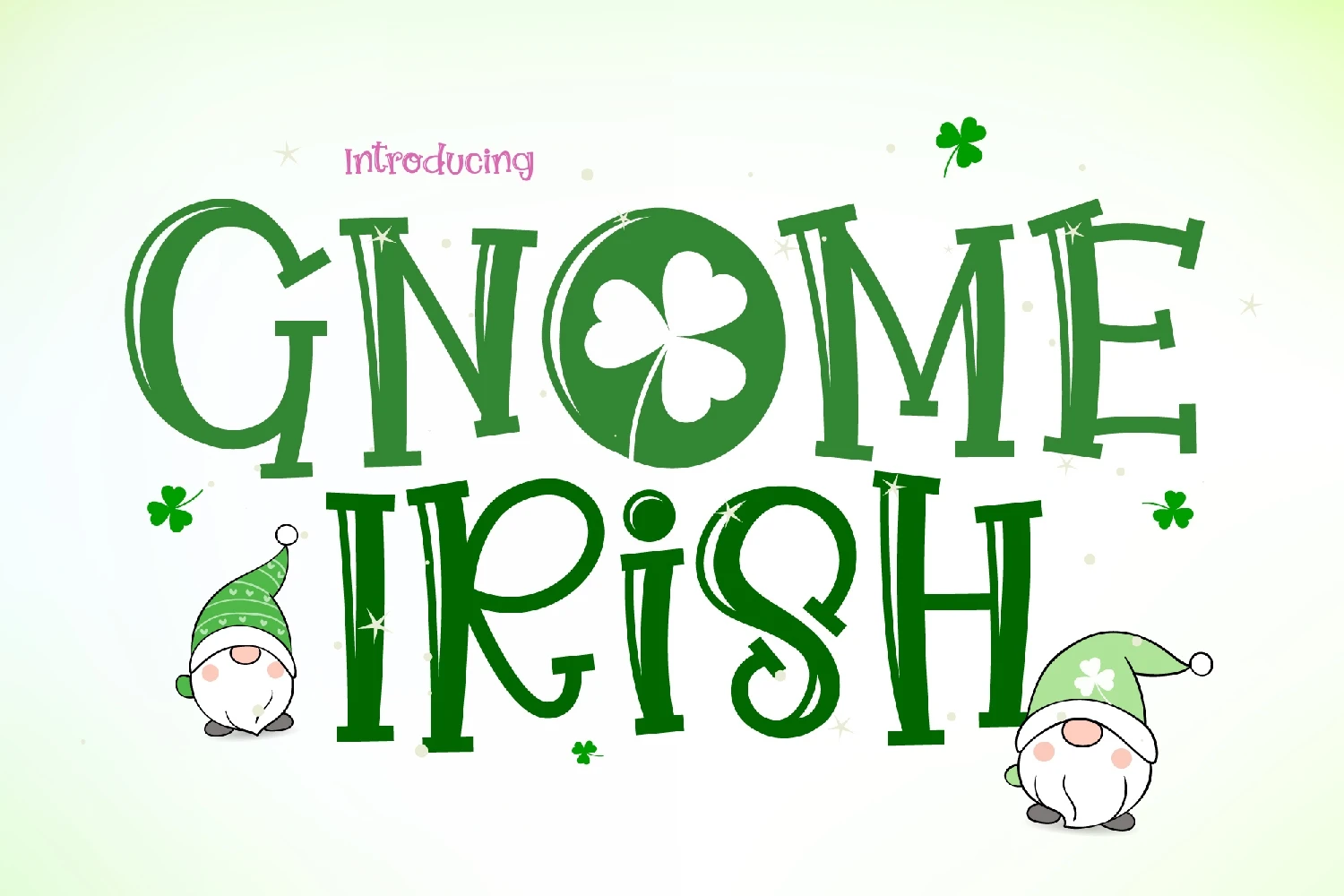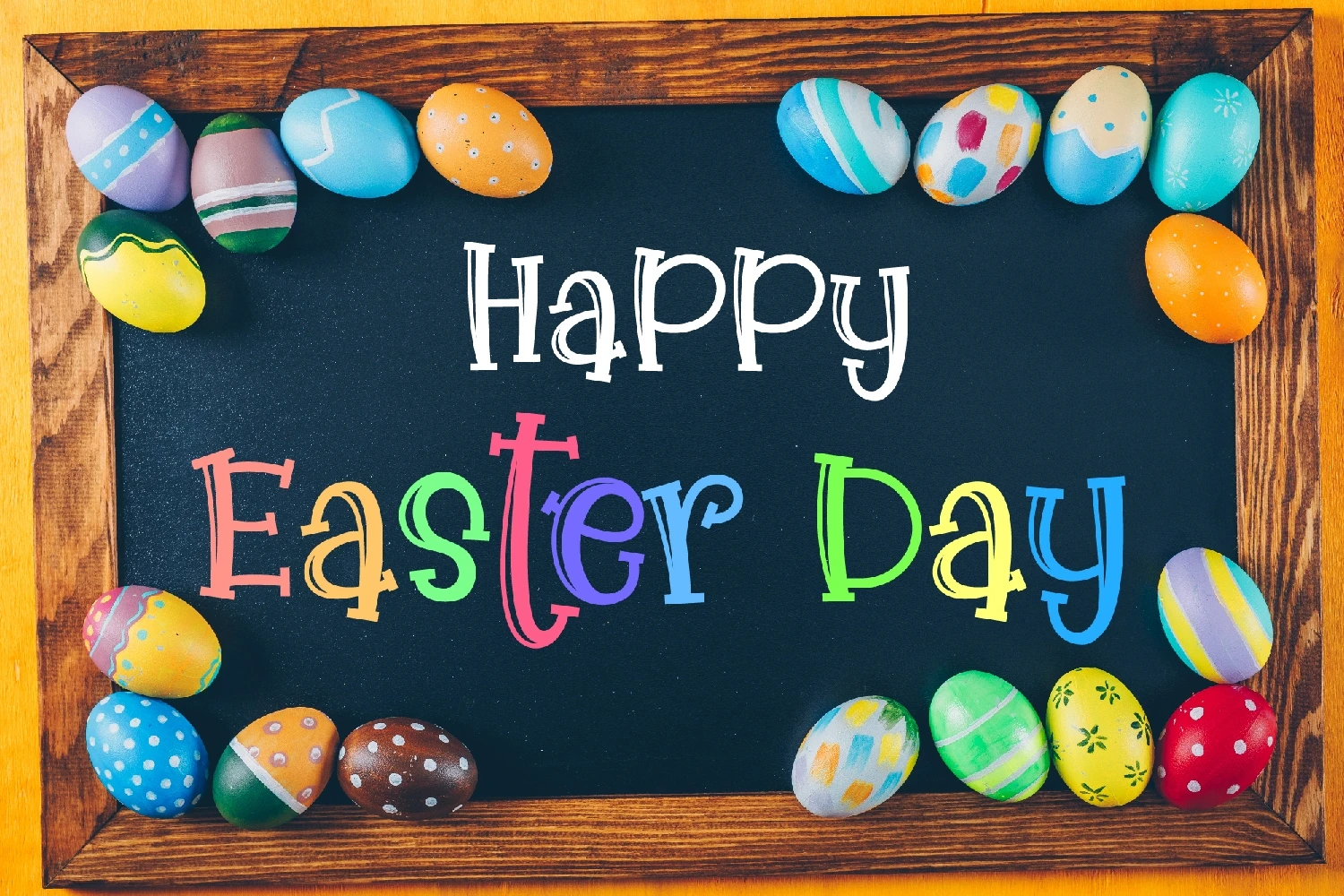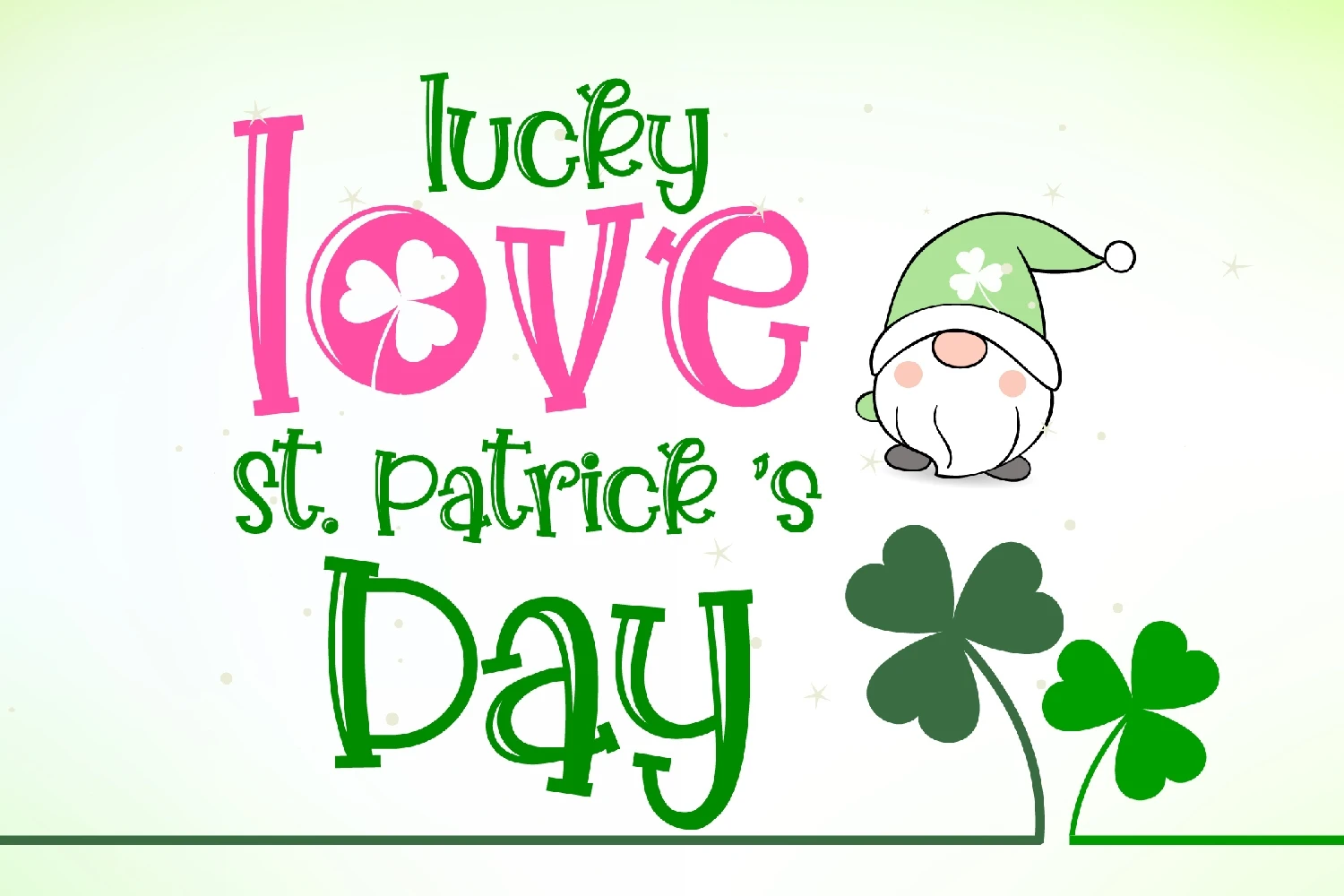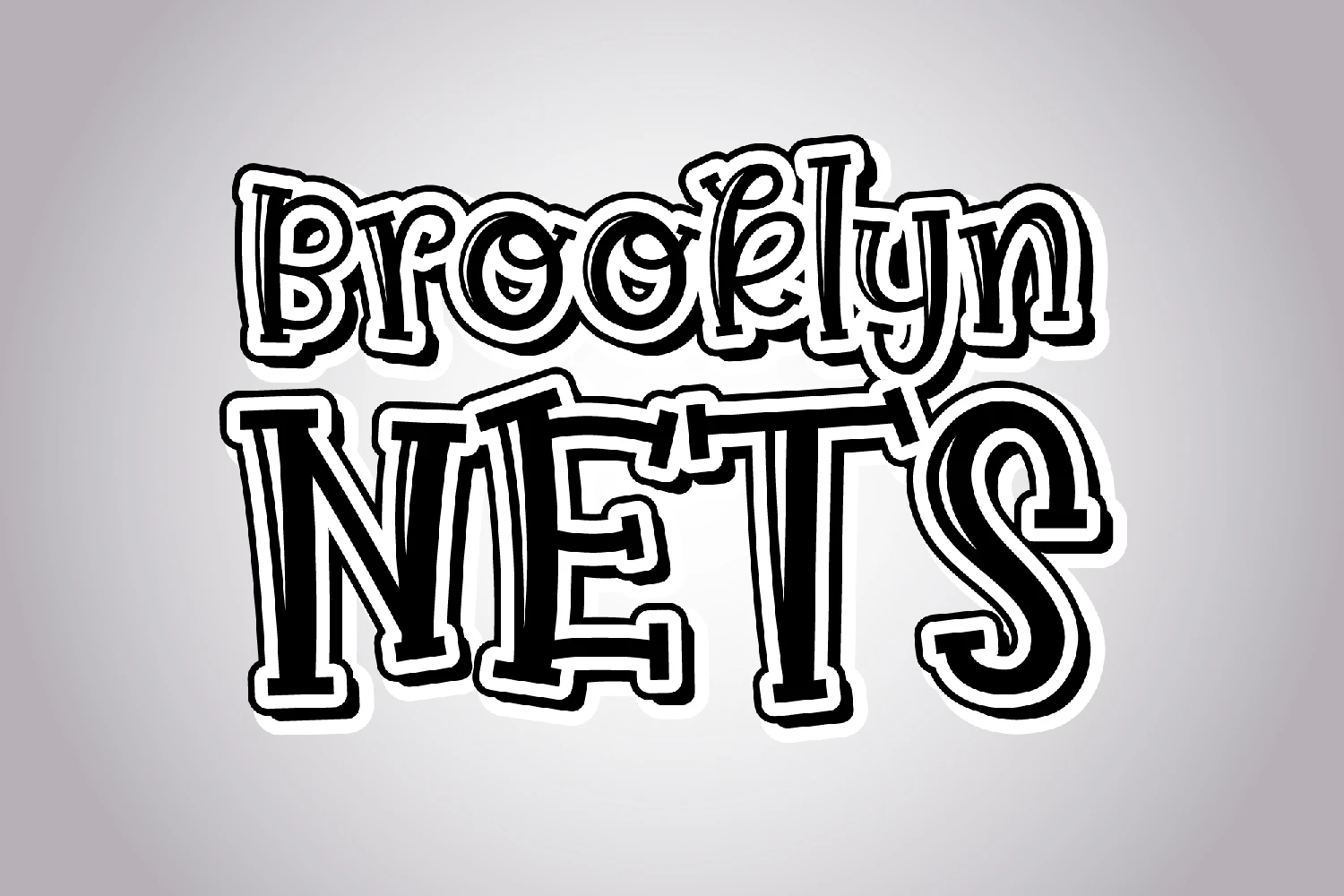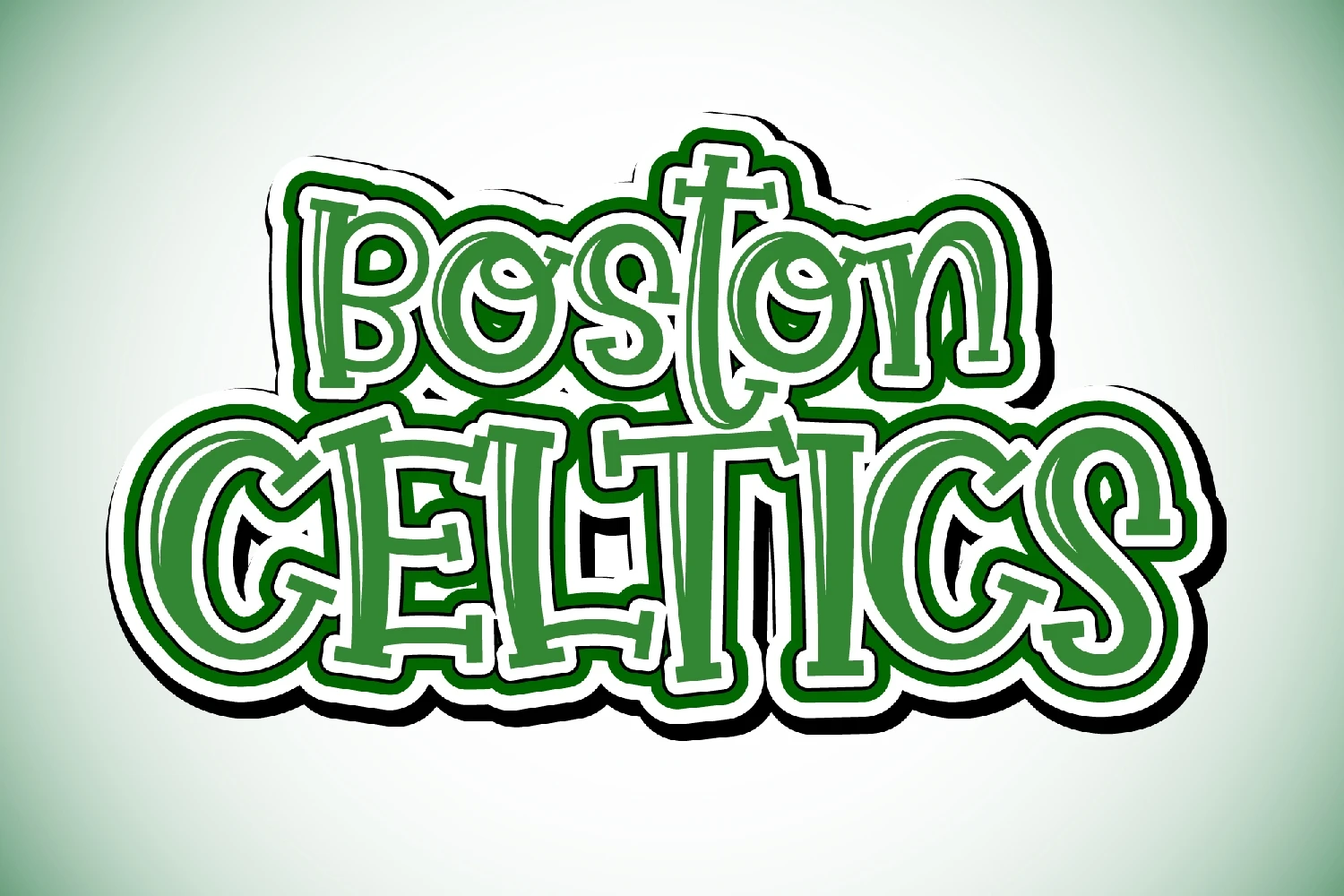
Gnome Irish is a playful and quirky display font. No matter the topic, this font will be an incredibly asset to your fonts library, as it has the potential to elevate any creation.